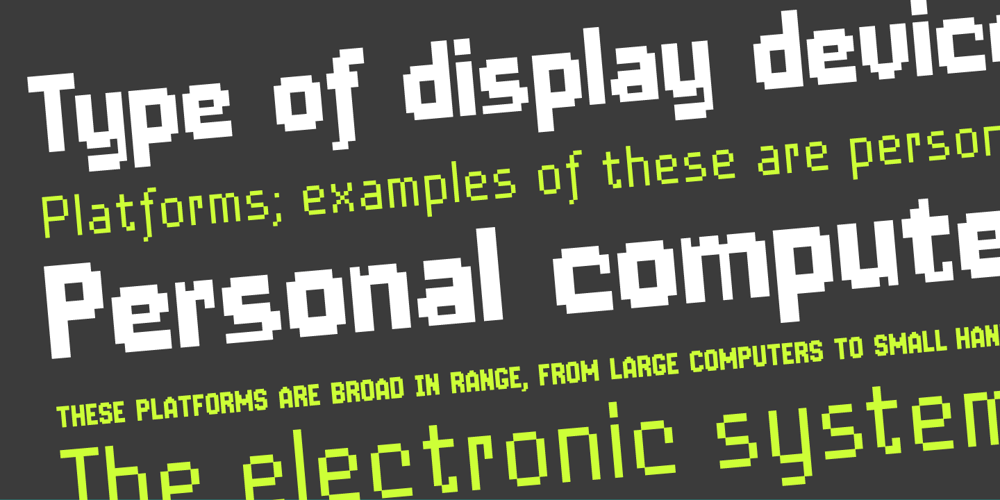
Dixplay Font Family was designed by Eduardo Manso and published by Emtype Foundry. Dixplay contains 2 styles and family package options. Dixplay, a typeface based on a pixel grid, is available in two weights: regular and black. Inspired by video game aesthetics of the 80s, was originally intended for display applications, but it works fine on paper as well. The font has been conceived in 20 px size allowing more freedom to manipulate it and making a big difference with other fonts of its kind, this difference it’s more evident in Dixplay Black. As a result, it’s optimized for screen use at 20 px and its multiples. Spacing is one of the most outstanding aspects of Dixplay. While pixel fonts doesn’t have kerning pairs, Dixplay offers more than 300 manually done that fit perfectly to the grid. It is available in Open Type format and supports Western European Languages that uses the Latin alphabet. For more details see the PDF.